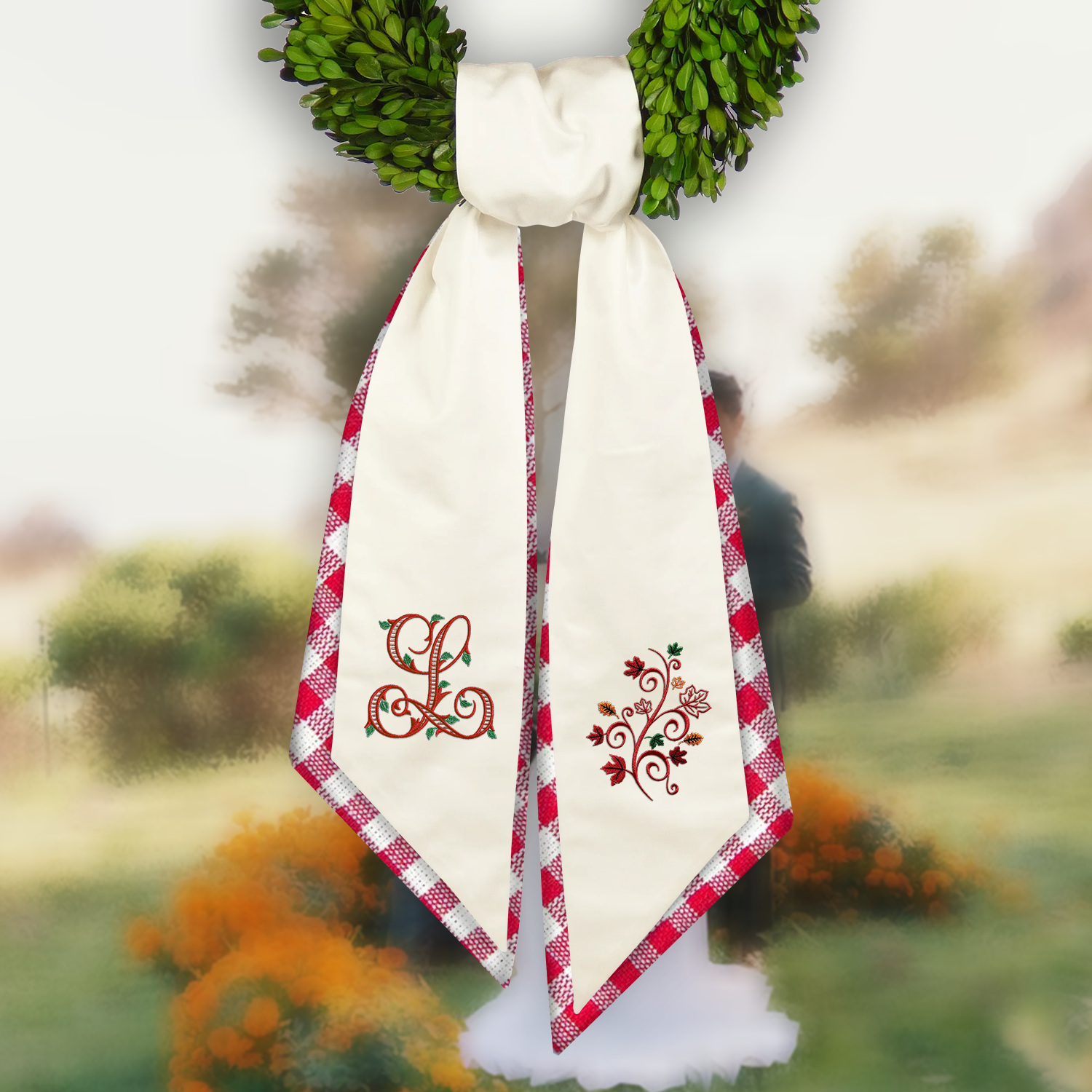
Serif Script Alphabet Quilt Block Embroidery Font
There is an indelible romance in marrying the disciplined architecture of a classical serif with the fluid, lyrical cadence of traditional copperplate script. When drafting the Serif Script Alphabet, our studio set out to solve an artisan challenge: how to design a statement alphabet bold enough to anchor a generously scaled quilt block or bespoke tapestry, while preserving the breathless elegance of a handwritten signature. The result is a design that bridges vintage prestige and modern grace, digitized to let your threadwork glide effortlessly across high-loft fabrics, catching every flicker of light with its rich satin luster.
Project Ideas for Serif Script Alphabet
The Serif Script Alphabet was created with timeless textile heirlooms in mind. Elevate your creative embroidery with these bespoke applications:
- Heirloom Memory & Medallion Quilts: Place a bride and groom's initial at the heart of a wedding quilt block, framed by intricate stippling or feather motifs.
- Bespoke Table Linens: Stitch dramatic individual initials on luxury linen banquet runners and oversized dinner napkins for an opulent dining experience.
- Couture Nursery Keepsakes: Craft custom baby milestone quilts, cashmere crib blankets, or personalized nursery wall banners that become treasured family keepsakes.
- Personalized Bridal Suite Accents: Embellish heavy silk bridal robes, honeymoon weekenders, and master suite duvet covers with custom heirloom monogramming.
- Oversized Canvas Weekender Bags: Anchor heavy cotton canvas or linen luggage with a crisp, tailored 5-inch or 6-inch initial for bespoke travel style.
Because these letters balance generous vertical stature with sweeping flourish flourishes, deliberate positioning ensures maximum visual balance:
- On-Point Quilt Blocks: Center the letter squarely within diamond-set quilt squares, allowing the flourishes to naturally guide the eye toward the block corners.
- Center Pillow Medallions: Position centered on square decorative accent pillows (18" to 24"), using low-luster rayon or rich cotton threads for tactile contrast against velvet or heavy slub linen.
- Diagonal Corner Placements: For wide-hem table toppers or plush throw blankets, align the letter on a 45-degree angle 4 to 6 inches inward from the finished corner point.
- Framed Fabric Art: Center a solitary 6-inch initial within a decorative wooden hoop or gallery frame on stretched raw dupioni silk for an exquisite personalized gift.
Serif Script Alphabet Craft & Letterform Details
The beauty of this alphabet lies in its deliberate tension between structure and freedom. We began each glyph with the upright dignity of a chiselled Roman serif, grounding the letter with stable footings and refined terminal points. From that architectural foundation springs the sweeping drama of script—graceful ascending loops, gentle swells, and whispering exit tails that soften the overall composition.
From a digitizing perspective, large-scale lettering requires profound technical discipline. Rather than relying on uniform stitch lengths, each satin column has been dynamically mapped with flowing stitch angles that follow the natural brushwork of an inked nib. Variable-density underlay provides a rock-solid foundation, ensuring that every serif point stays crisp and distinct without cutting into fine textiles or sinking into lofty batting. The thread paths are sequenced seamlessly, delivering a smooth, mirror-sheen satin finish that will endure for generations of gentle laundering and loving display.